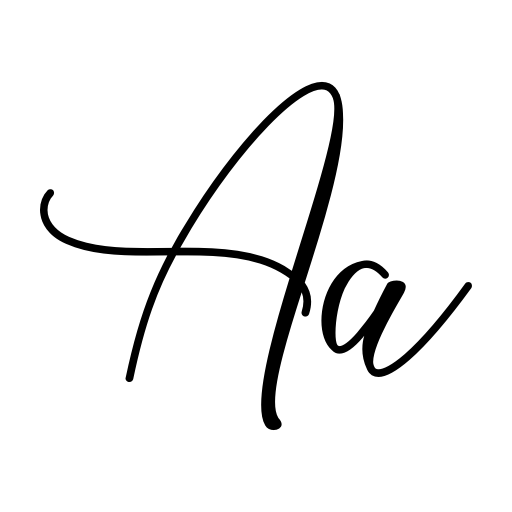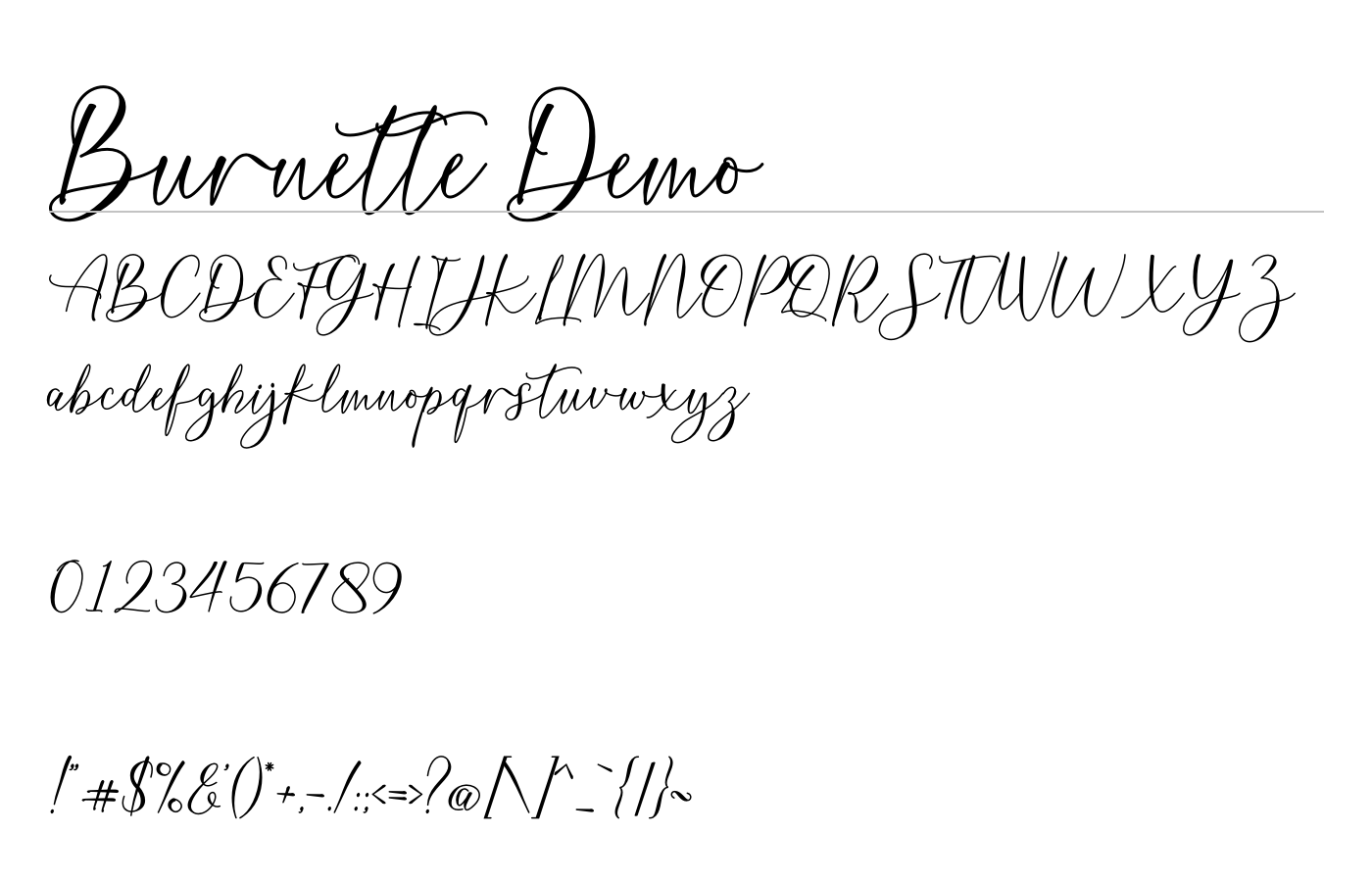
Burnette Demo is an elegant, handwritten script font with a light and delicate stroke that gives it a charming and graceful appearance. Its narrow, flowing letterforms and subtle variations create a refined, personal touch, making it ideal for invitations, branding, and projects that seek a sophisticated yet approachable style. This font works beautifully for designs that need a touch of warmth and elegance without being overly formal.
Burnette Demo Font
About Burnette Demo Font
| Designer | Tikara Sari |